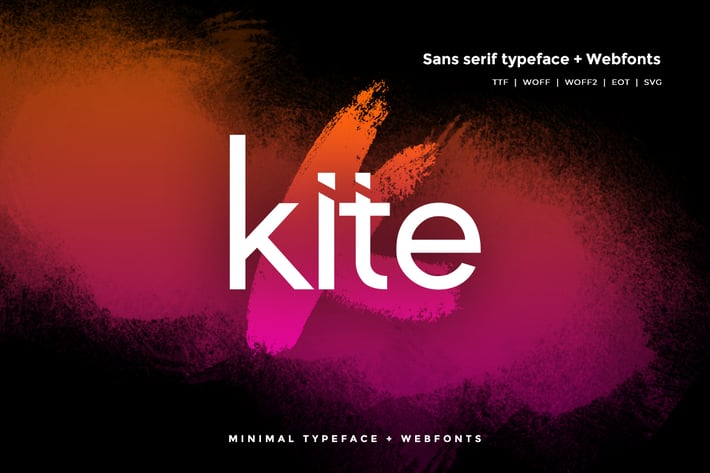
Kite - Modern Typeface + WebFonts
Kite Sans Typeface
Another modern fantastic sanserif typeface from Unbranded, which delivers a remarkable unique typography style. The pack includes OTF, TTF and Web Fonts (all EOT, SVG, TTF, WOFF included).
Font Designed and Crafted by Richard Arbour, Distributed by Webhance Studio.